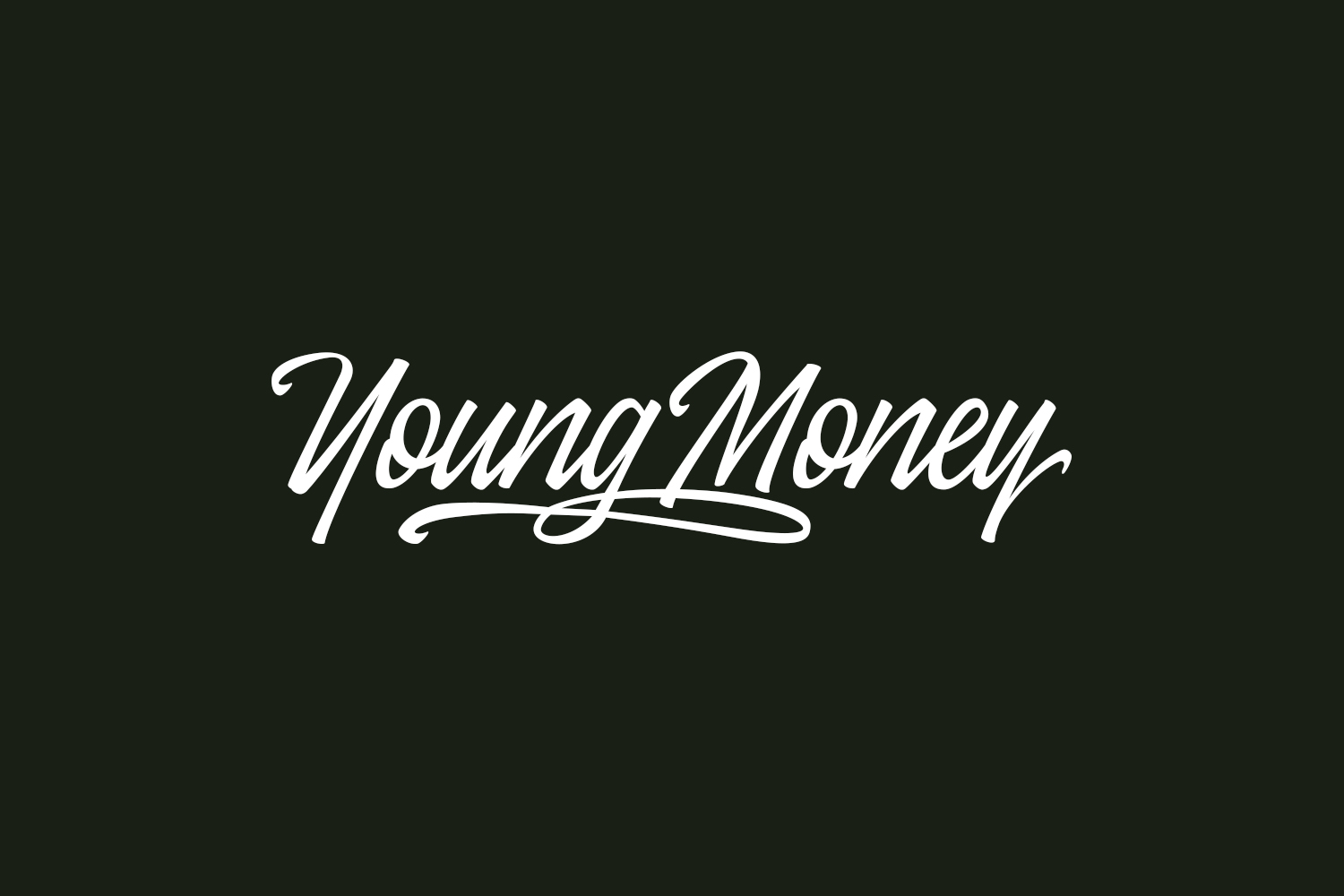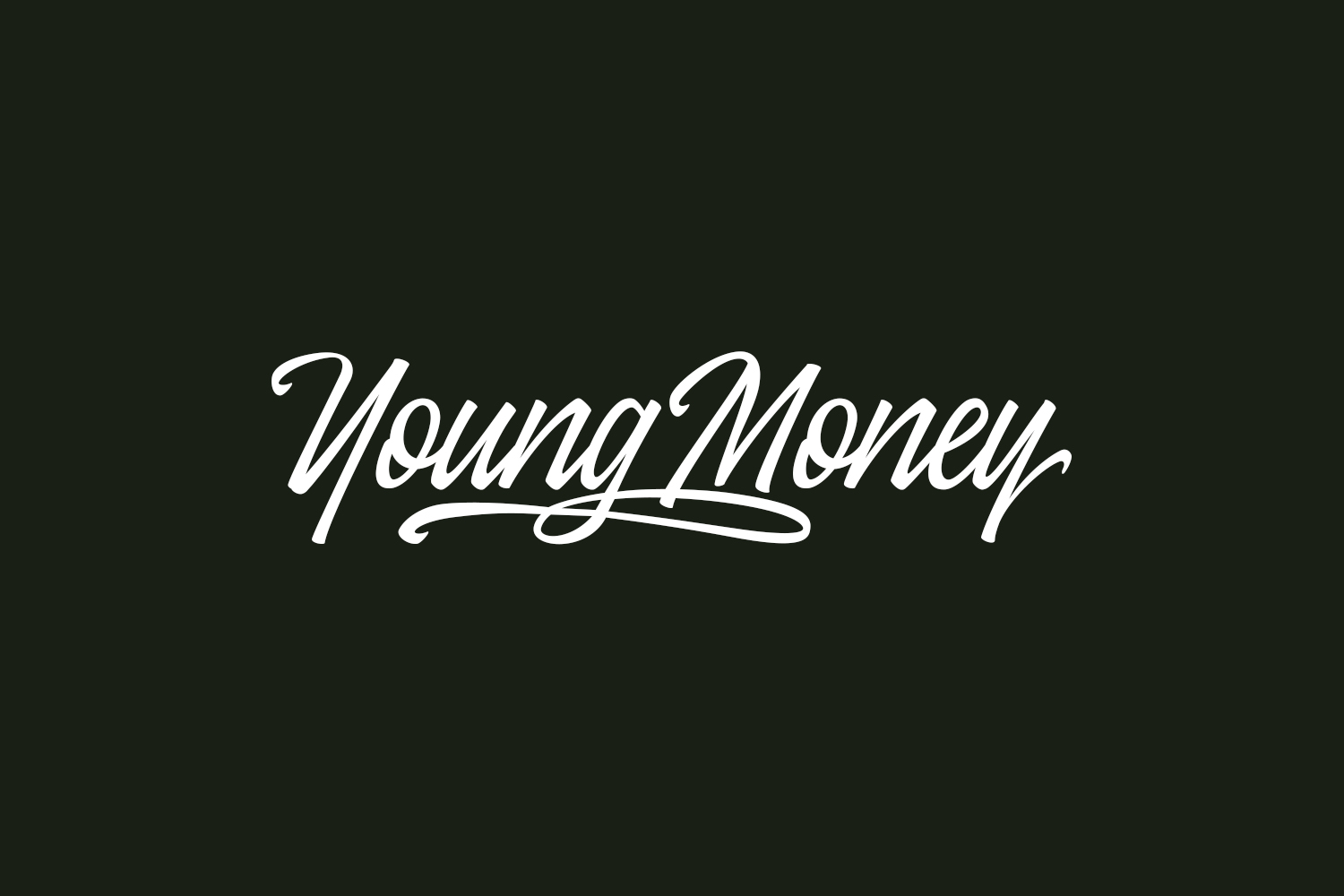
Young Money Free Font is a luxurious and bold display script font that commands attention with its lavish curves and stylish flourishes. This calligraphic typeface exudes the confidence and sophistication of a successful entrepreneur, making it the perfect choice for branding and marketing materials for high-end products and services. The font’s bold strokes and elegant swashes bring a sense of glamour and refinement to any design project, whether it’s used for logos, product packaging, or event invitations. With its striking appearance and timeless style, Young Money Free Font is the perfect choice for designers looking to elevate their work to the next level.